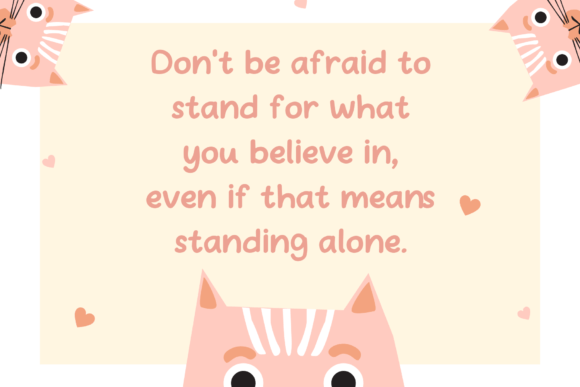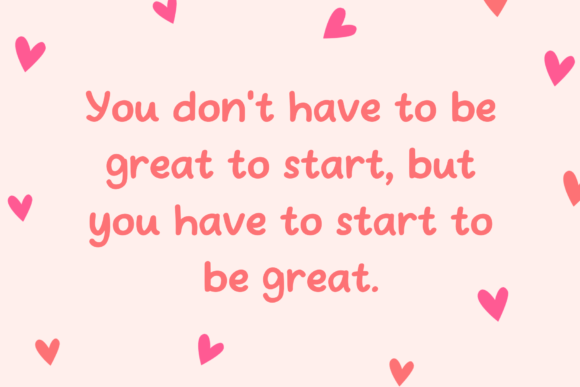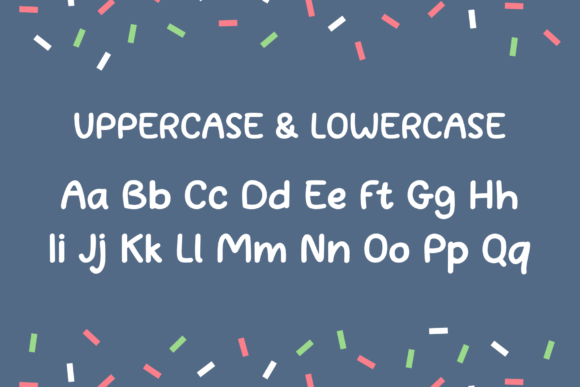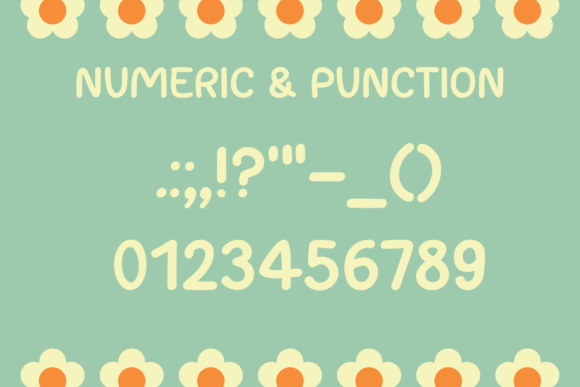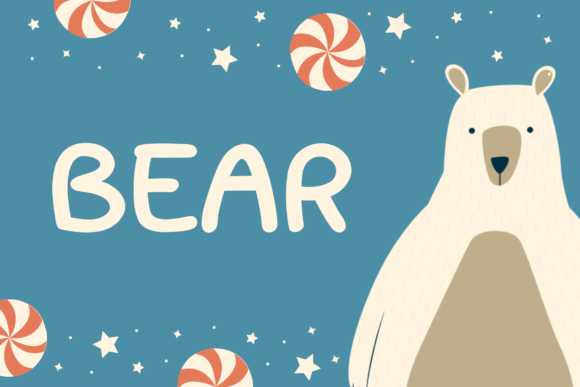
Add a Touch of Cuteness to Your Designs with Bear Font
Are you looking for a font that can add a touch of cuteness and playfulness to your designs? Look no further than the Bear font! This adorable script font is perfect for children’s books, greeting cards, and more. With its fun and playful lettering, Bear font is sure to bring a smile to anyone’s face.
What is Bear Font?
Bear font is a charming handwritten script font that is designed to add a touch of whimsy to your designs. Its playful and fun lettering style makes it perfect for designs that require a personal and friendly touch. Whether you’re designing for kids or just looking to add a bit of personality to your work, Bear font is the perfect choice.
Features of Bear Font
Bear font has several features that make it a great choice for designers and crafters. Some of its key features include:
- Playful and Fun Lettering Style: Bear font has a playful and fun lettering style that is sure to bring a smile to anyone’s face.
- Charming Handwritten Style: The font has a charming handwritten style that gives it a personal and friendly touch.
- Perfect for Children’s Books: Bear font is perfect for children’s books, with its playful and fun lettering style that kids will love.
- Ideal for Greeting Cards: The font is also ideal for greeting cards, with its charming and personal style that is sure to make your cards stand out.
Why Use Bear Font?
There are several reasons why you should use Bear font in your designs. Some of the benefits of using Bear font include:
- Adds a Touch of Cuteness: Bear font adds a touch of cuteness and playfulness to your designs, making them more appealing to your audience.
- Perfect for Kids: The font is perfect for designs that are aimed at kids, with its playful and fun lettering style that kids will love.
- Increases Engagement: Bear font can increase engagement with your audience, with its charming and personal style that is sure to grab their attention.
- Versatile: The font is versatile and can be used in a variety of designs, from children’s books to greeting cards and more.
Design Ideas Using Bear Font
Bear font can be used in a variety of designs, here are some ideas to get you started:
- Children’s Books: Use Bear font to create engaging and fun children’s books that kids will love.
- Greeting Cards: Use the font to create charming and personal greeting cards that will make your recipients smile.
- Party Invitations: Use Bear font to create fun and playful party invitations that will set the tone for your party.
- Social Media Graphics: Use the font to create engaging and fun social media graphics that will grab your audience’s attention.
In conclusion, Bear font is a great choice for designers and crafters who want to add a touch of cuteness and playfulness to their designs. With its playful and fun lettering style, charming handwritten style, and versatility, Bear font is perfect for a variety of designs, from children’s books to greeting cards and more. Download Bear font today and let your creativity run wild!